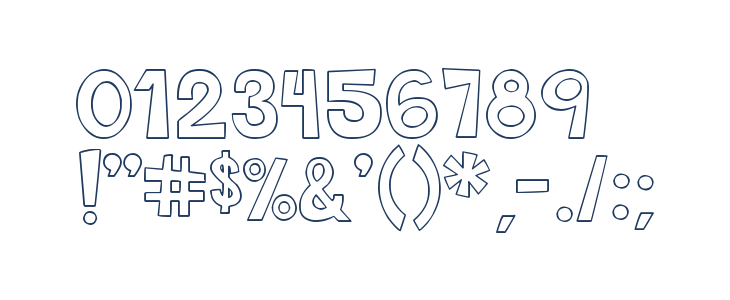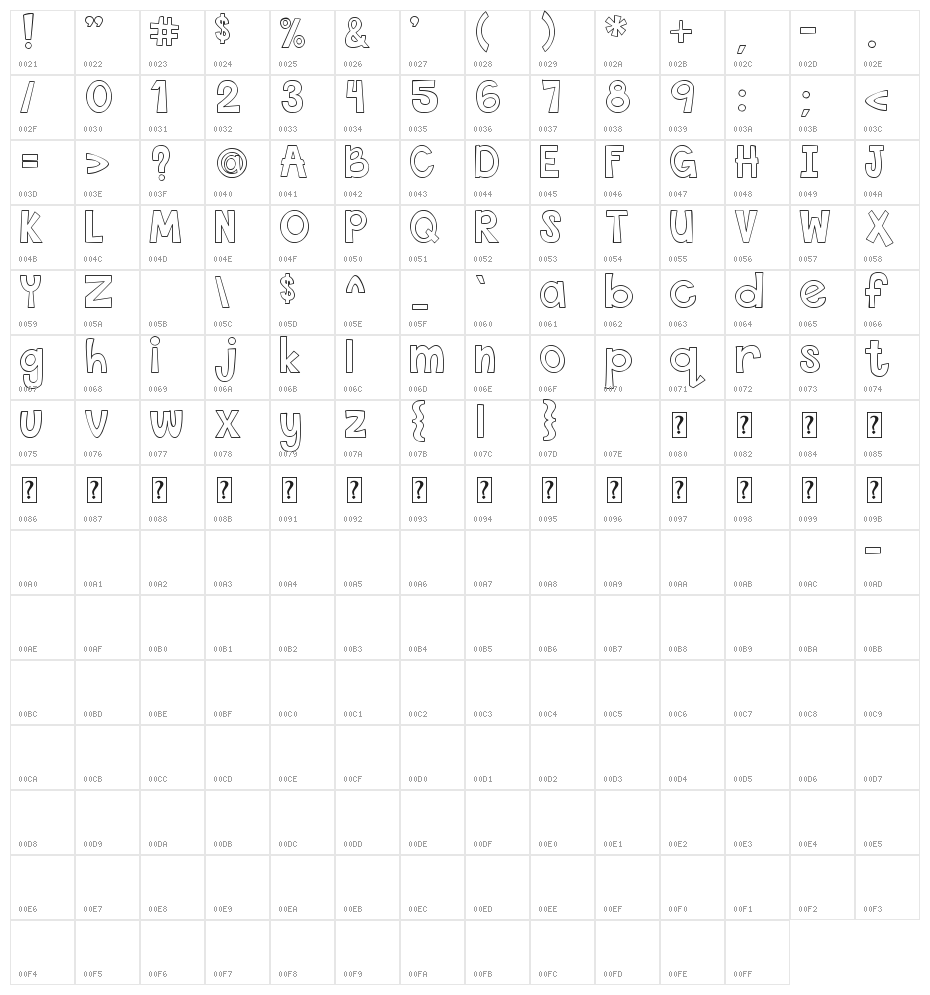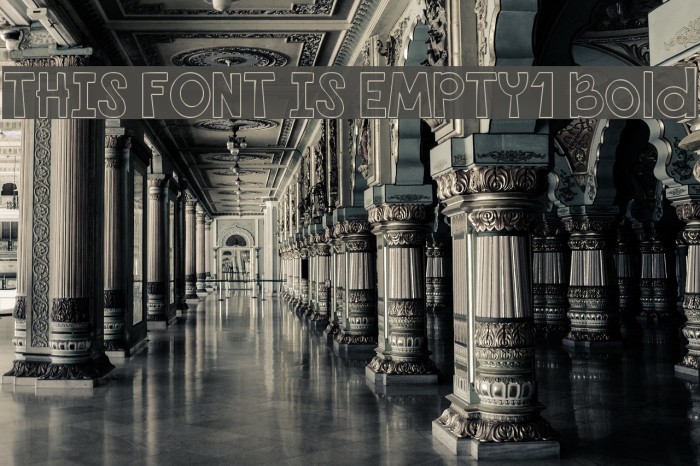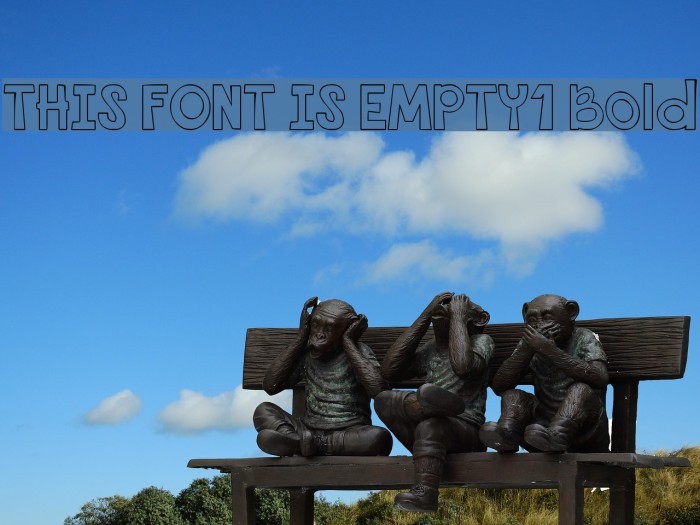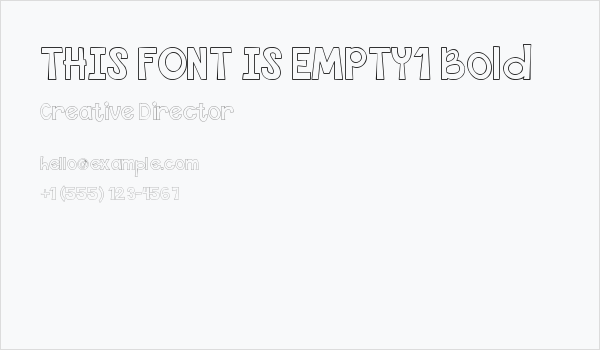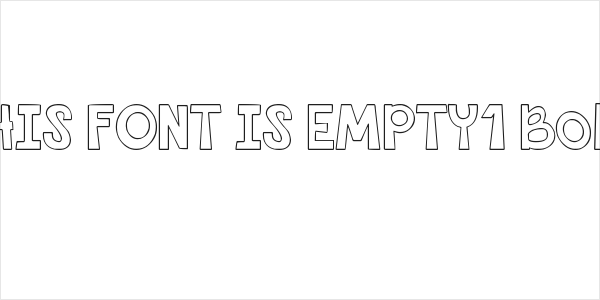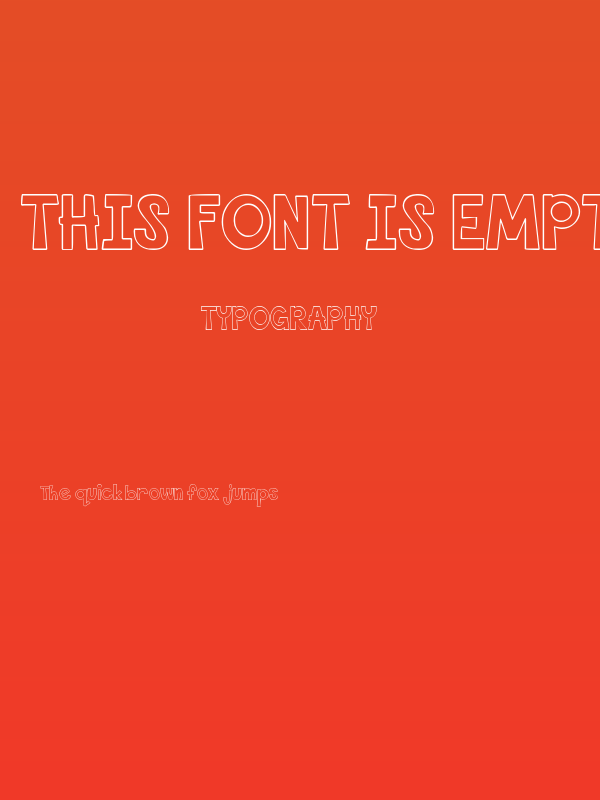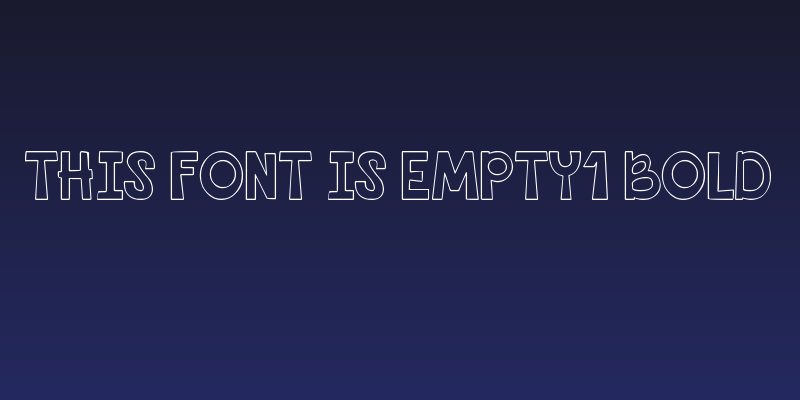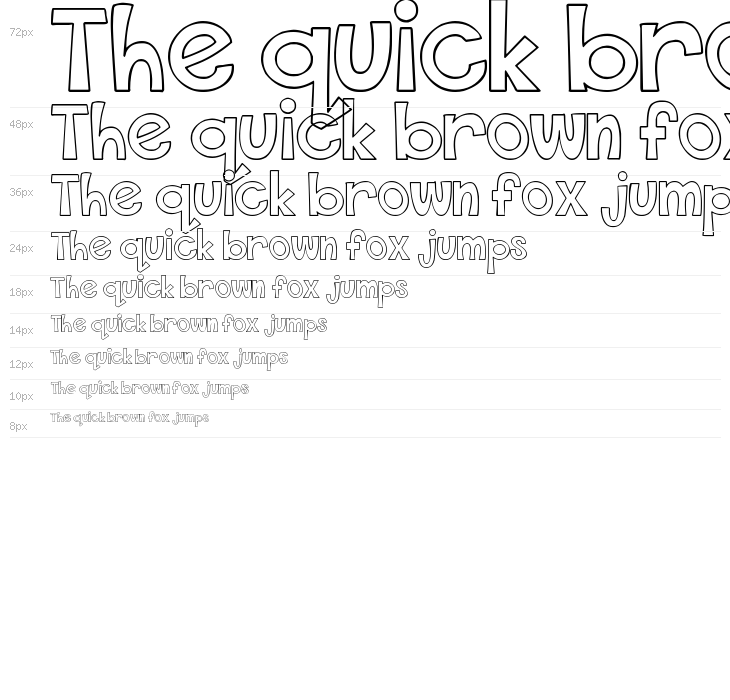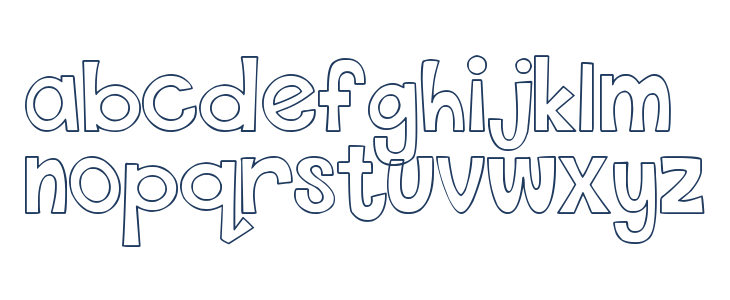
THIS FONT IS EMPTY1 Bold Font
THIS FONT IS EMPTY1 Bold Description
| Overall Style | Playful, Modern, Whimsical |
| Proposed Projects | Ideal for children's books, playful branding, posters, and creative invitations. |